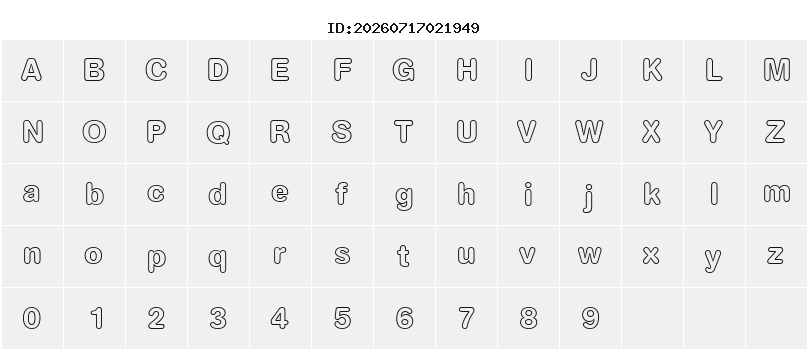
AG Book Rounded Preview
• Font Name: AG Book Rounded
• Full Font Name: AG Book Rounded Bold Outline
• PostScript Name: AGBookRounded-BoldOutline
About AG Book Rounded.ttf
AG Book Rounded.ttf is a modern, elegant sans-serif font designed for ultimate readability and visual harmony. Perfect for branding, headlines, web design, and print materials.